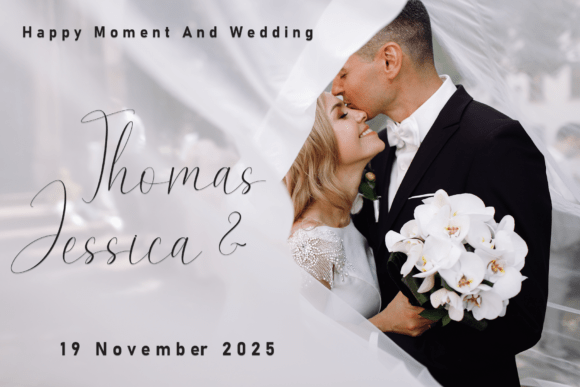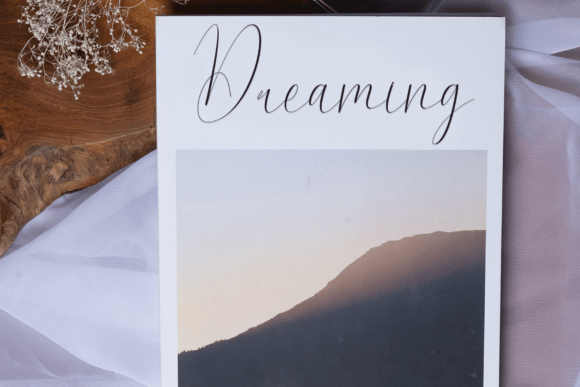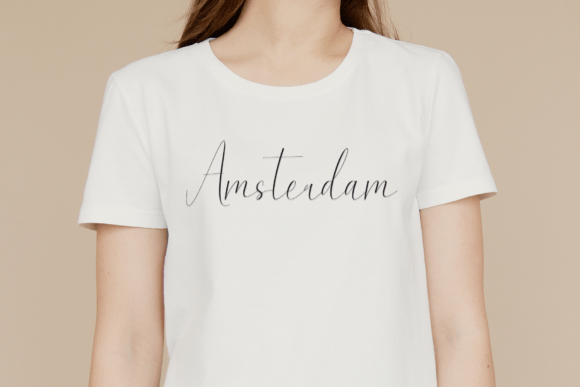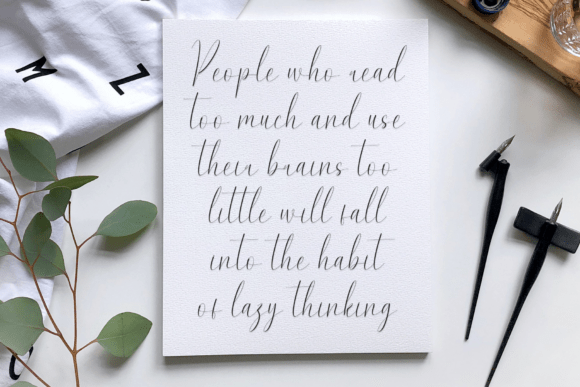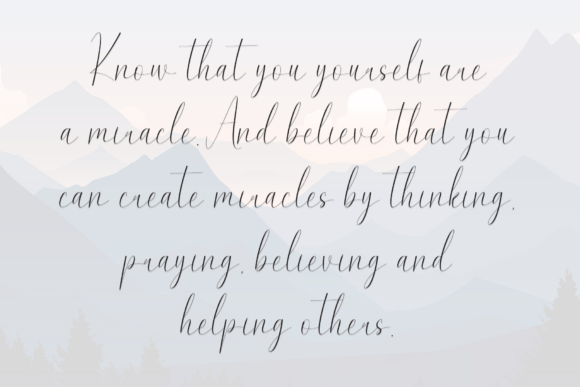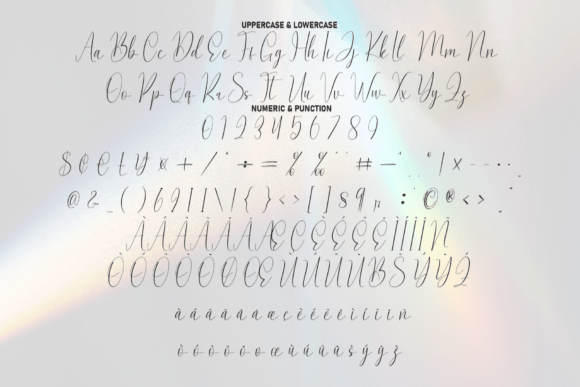
Discover the Elegance of Angleshine Font: Elevate Your Designs with Fresh Charm
Are you on the hunt for a font that embodies elegance, charm, and a touch of sophistication? Look no further than the Angleshine Font. This stylish handwritten script font is designed to bring a sense of renewal and delicate beauty to your designs. Whether you’re working on invitations, branding projects, or seasonal designs, Angleshine is the perfect choice to add a soft, personal touch and an uplifting feel to your work.
The Unique Characteristics of Angleshine Font
Angleshine Font stands out with its flowing strokes and graceful curves, which are meticulously crafted to evoke a sense of freshness and elegance. The font’s design is inspired by the beauty of handwritten scripts, yet it maintains a level of sophistication that is hard to achieve with traditional typography. Each letter is carefully shaped to contribute to the overall harmony and aesthetic appeal of the text, making it a joy to read and a pleasure to look at.
One of the key advantages of Angleshine Font is its versatility. Its unique blend of elegance and charm makes it suitable for a wide range of design projects. Here are a few ideas on how you can use Angleshine to elevate your work:
- Invitations: Whether you’re designing wedding invitations, birthday party invites, or any other special occasion, Angleshine adds a touch of class and personal warmth that is sure to impress.
- Branding: For businesses looking to establish a brand identity that is both sophisticated and approachable, Angleshine can be a great choice. It’s perfect for logos, packaging, and marketing materials.
- Seasonal Designs: Capture the essence of the season with Angleshine. From Christmas cards to summer sale promotions, this font brings a fresh and festive feel to your designs.
Why Choose Angleshine Font?
With so many fonts available, why should Angleshine be your top choice? Here are a few compelling reasons:
- Elegance and Charm: Angleshine offers a unique blend of elegance and charm that is hard to find in other fonts. Its beautiful strokes and curves make it stand out in any design.
- Versatility: Whether you’re working on digital projects or print materials, Angleshine performs exceptionally well across different mediums.
- Easy to Read: Despite its elegant and flowing design, Angleshine remains highly legible, making it practical for use in a variety of contexts.
- Personal Touch: The font adds a soft, personal touch to your designs, making them more relatable and engaging to your audience.
How to Use Angleshine Font Effectively
To get the most out of Angleshine Font, consider the following tips:
- Pair it with Complementary Fonts: For maximum impact, pair Angleshine with simpler fonts that complement its elegance without overpowering it.
- Experiment with Colors: Angleshine looks great in a variety of colors, but soft pastels or rich jewel tones can really make it pop.
- Play with Sizes: Don’t be afraid to vary the font size to create visual interest and hierarchy in your designs.
Angleshine Font is a stylish and elegant handwritten script font that brings a fresh and charming feel to any design project. Its flowing strokes, graceful curves, and delicate charm make it perfect for a wide range of applications, from invitations and branding to seasonal designs. With its versatility, readability, and unique aesthetic appeal, Angleshine is an excellent choice for designers and crafters looking to add a touch of sophistication and personal warmth to their work. Discover the beauty of Angleshine Font today and elevate your designs to new heights of elegance and charm.